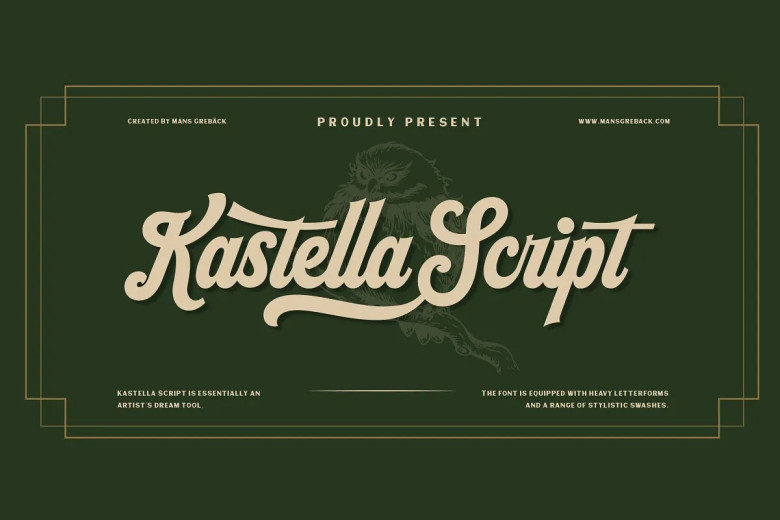
Kastella Script Font is an artist’s ideal tool. Not just writing but crafting artistic stories with every stroke. Not simply about words alone but how they come together into an artwork’s final layers – not only text but narrative too! With thick letterforms and stylish swashes providing versatile toolset that is ideal for branding projects as well editorial layouts.
Kastella Script Bold Calligraphy Font